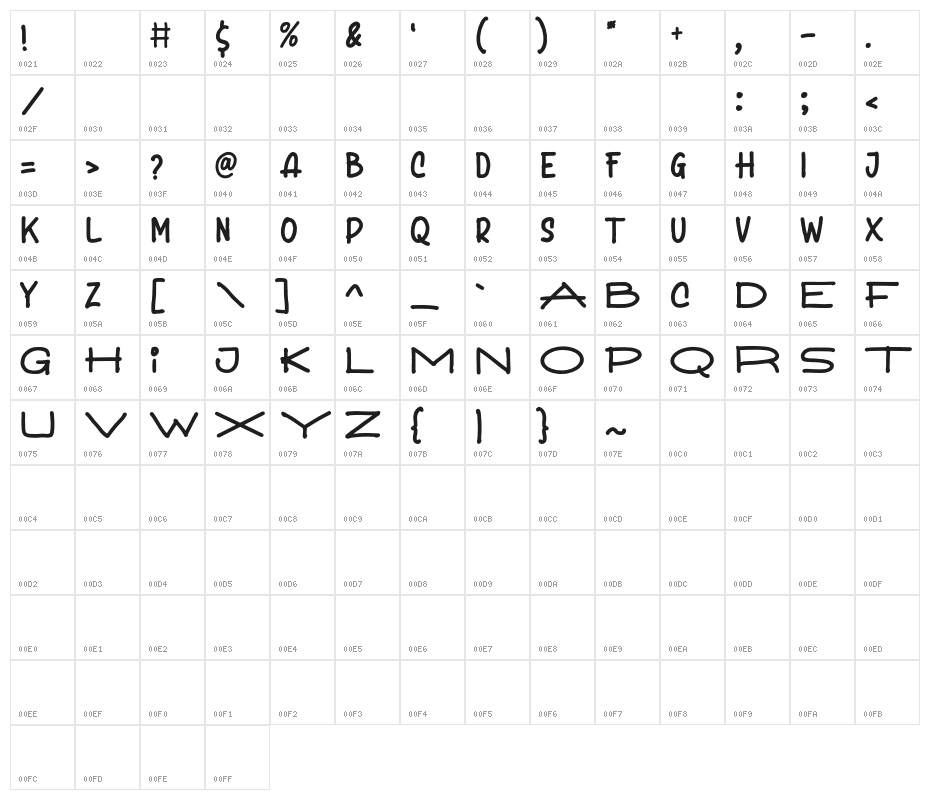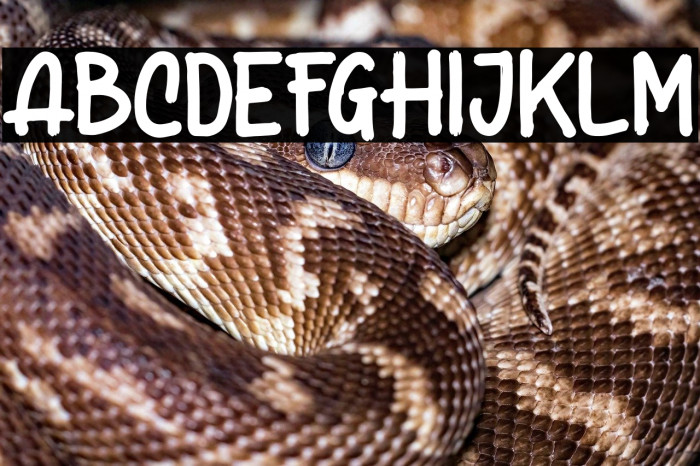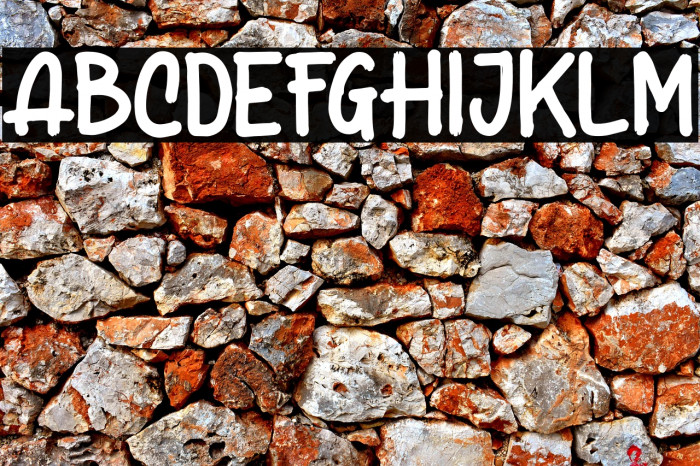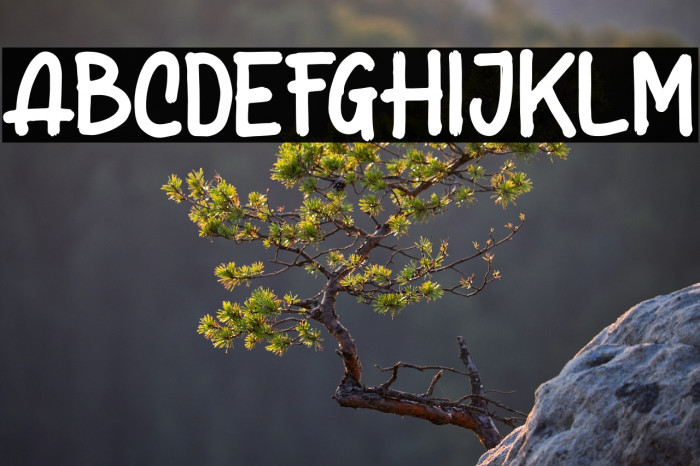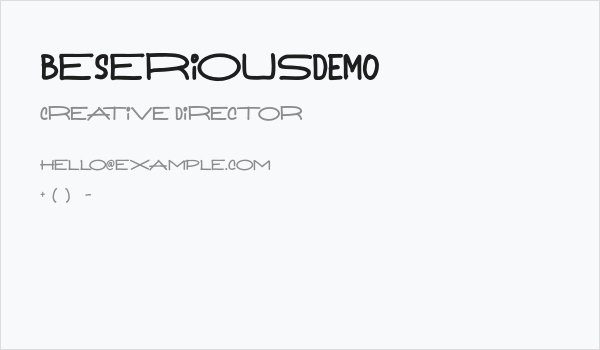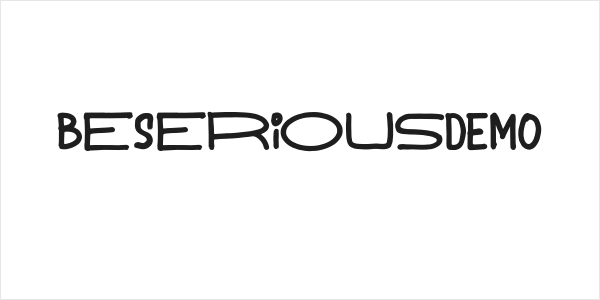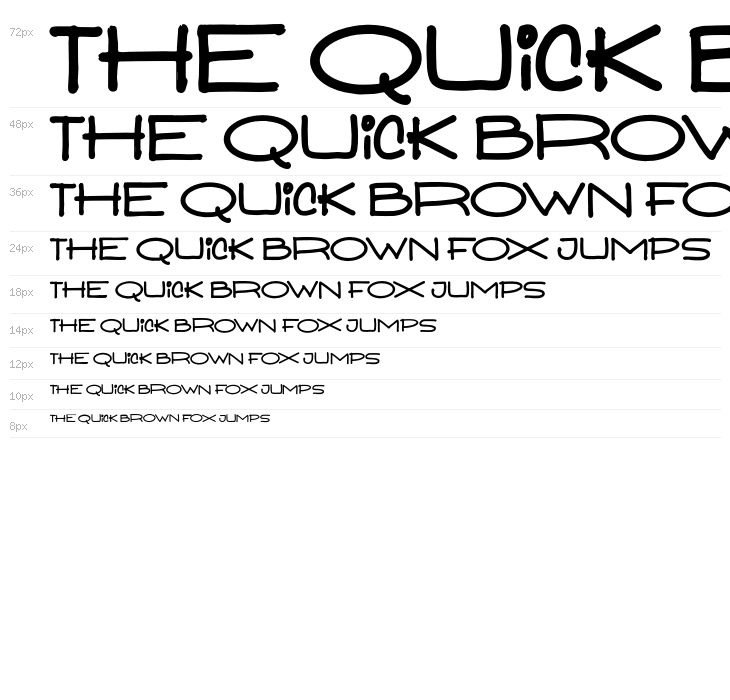
BeSeriousDEMO Font
BeSeriousDEMO Description
A playful, handwritten font with a casual and informal style. It features bold strokes and slightly irregular shapes, giving it a dynamic and lively appearance.
| Overall Style | Casual, Playful |
| Use Case | Headlines, Informal text, Branding |
| Proposed Projects | Greeting cards, children's books, casual branding. |